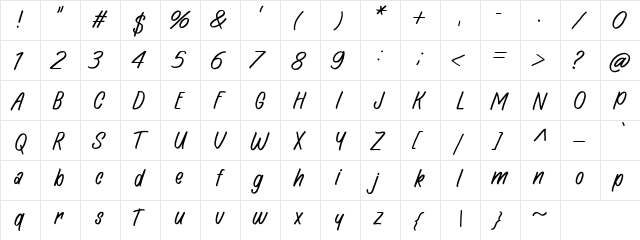
Hingar Bingar Handdrawan
| Style | Handdrawan |
| Foundry | Stefie Justprince |
| Designer | Stefie Justprince |
Design Context for Hingar Bingar Typeface
Hingar Bingar brings a calligraphic fluidity to the page — its connecting strokes and expressive curves give it an unmistakably human quality.
Font Pairing: Combine Hingar Bingar with a simple geometric sans for maximum contrast — the tension between flowing curves and clean structure is a classic typographic pairing.
Pro Tip: Pair Hingar Bingar with a clean sans-serif for supporting text. The contrast between fluid script and geometric structure creates an elegant typographic hierarchy.